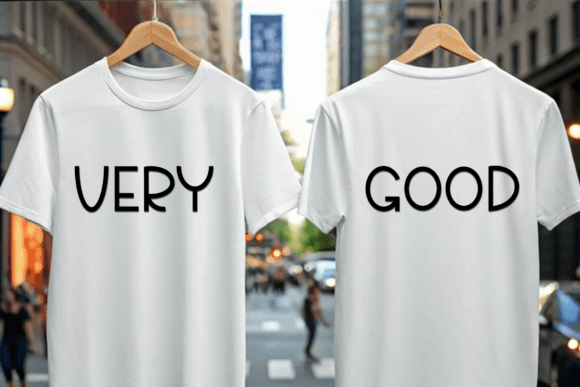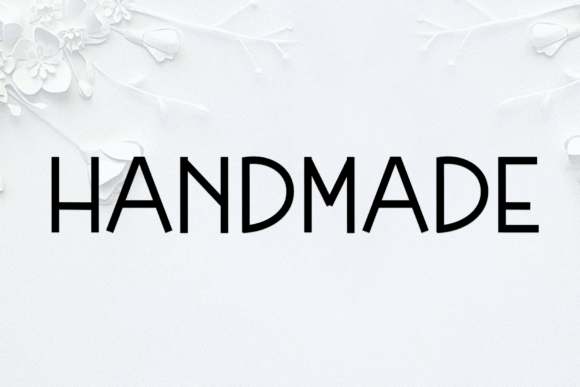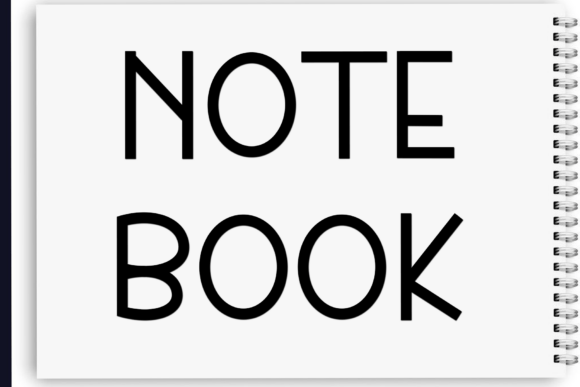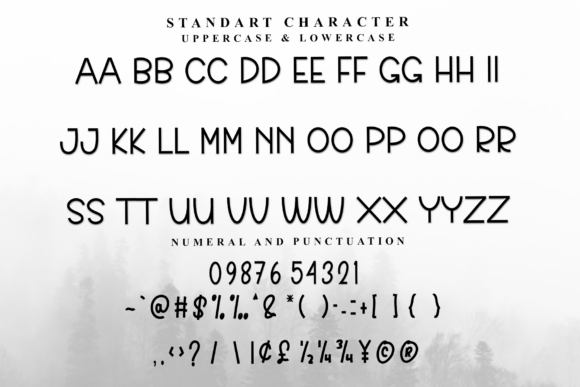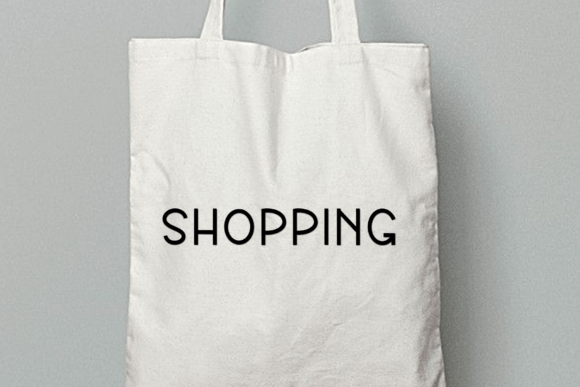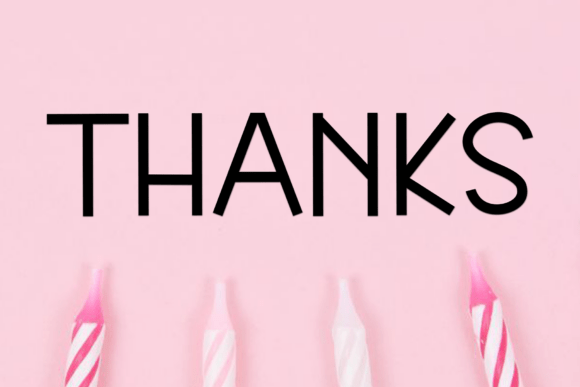
Introduction to Nothing Birthday Font
Nothing Birthday is a festive and merry typeface that captures the spirit of the holiday season.
Key Features of Nothing Birthday Font
Why Choose Nothing Birthday Font?
Nothing Birthday Font offers exceptional quality and versatility, making it a valuable addition to your design toolkit. Whether you’re creating for personal projects or commercial use, Nothing Birthday Font delivers professional results.